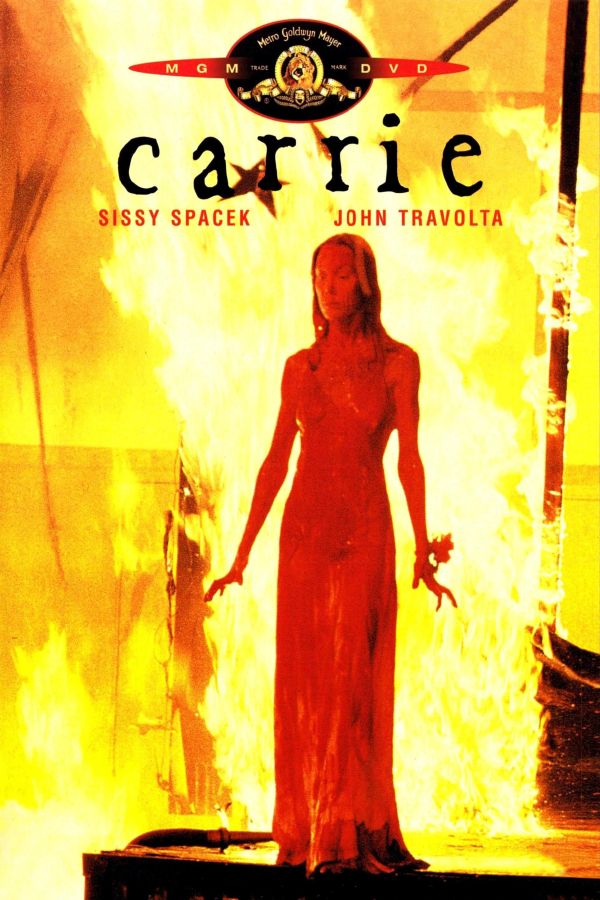
Carrie Font
Fonts in UseCarrie is a 1974 horror film based on Stephen King's novel of the same name, about a teenage girl who uses her telekinetic powers to take revenge on her tormentors at prom. It stars Sissy Spacek in the titular role and was directed by Brian De Palma.
It is likely that the font utilized for the "Carrie" title in the poster is Black Beard, which was designed by Ethan Paul Dunham in 1995 for Fonthead Design. Additional information about this font can be found here.